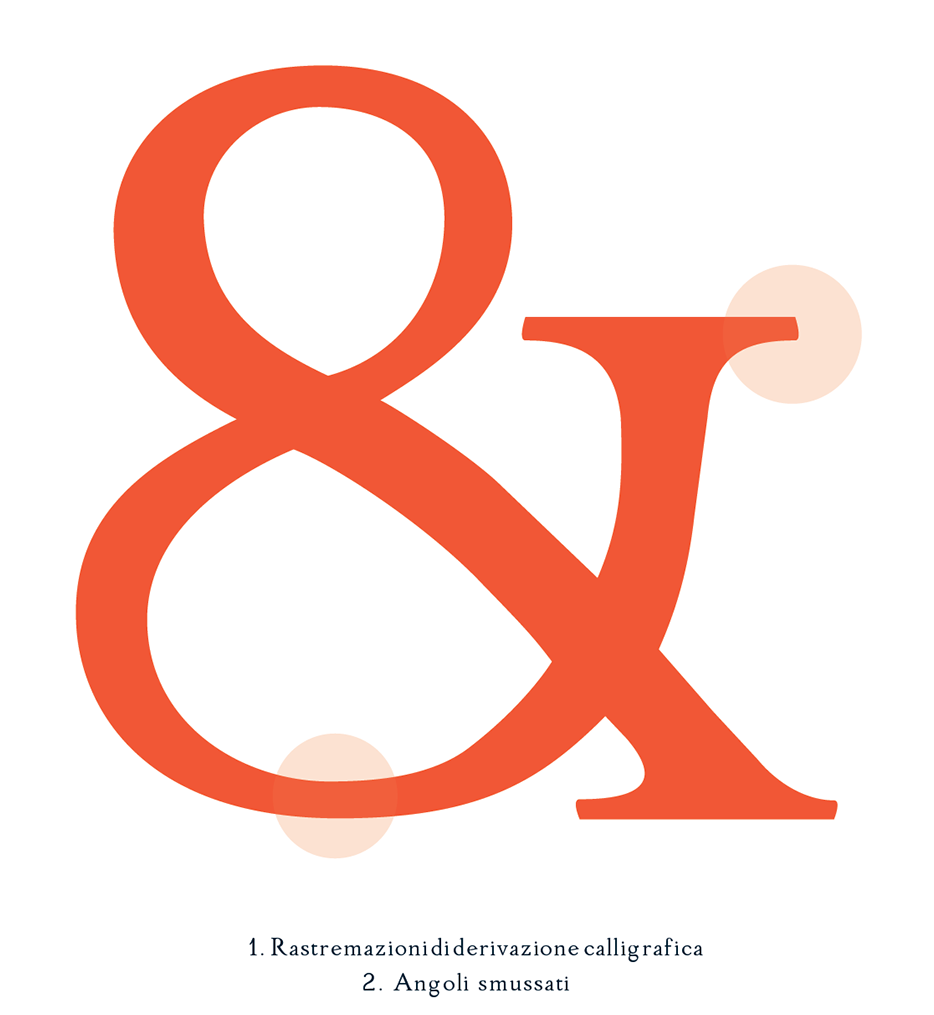
Caterina Scardillo
Graphic designer and calligraphy teacher at LABA, Free Academy of Fine Arts, in Firenze, Italy. In 2016, she designed the drop-dead gorgeous typeface Davanzati for Palazzo Davanzati, Museo della Casa Fiorentina. Davanzati has elements of Bembo (like the nose in the e) and Trajan.